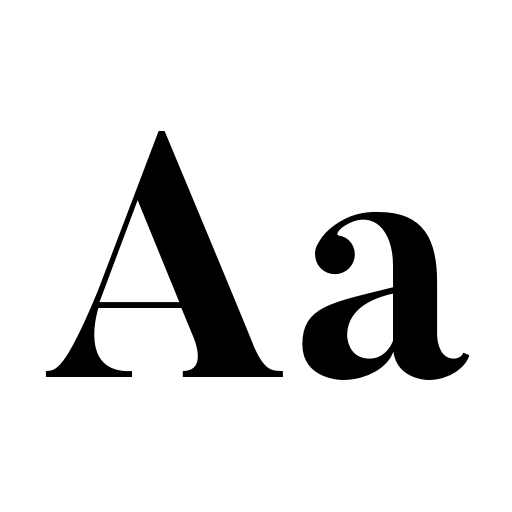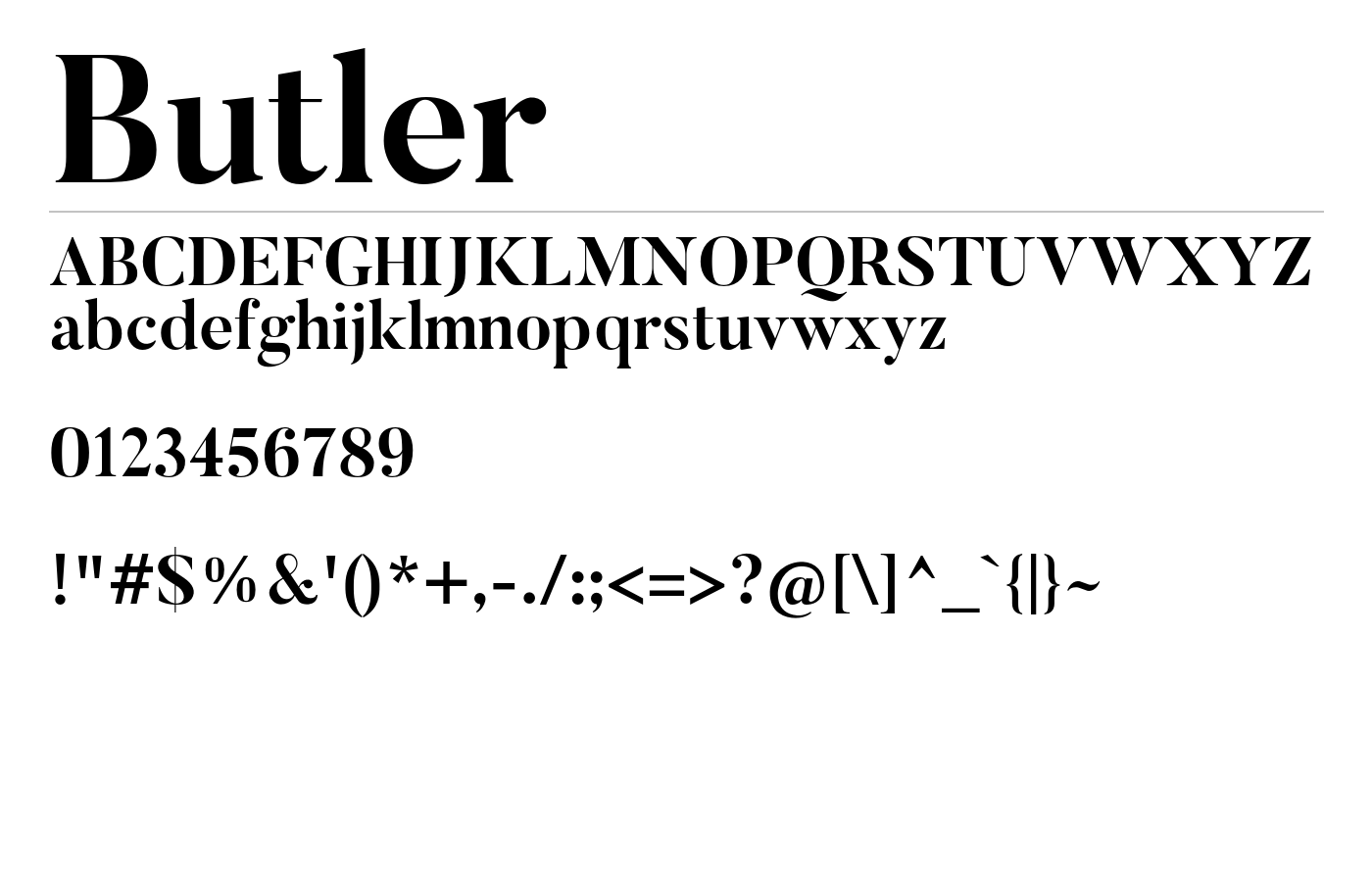
Butler is a sophisticated serif typeface that combines classic elegance with a modern touch through its high contrast between thick and thin strokes and refined bracketed serifs. Its bold weight and slightly condensed letterforms give it a strong presence, making it ideal for branding, editorial headlines, and luxury packaging where a stylish, authoritative voice is desired. This font's blend of traditional serif elements with contemporary design details creates a versatile and polished look perfect for fashion, editorial, and professional use.
Butler Font
About Butler Font
| Designer | Fabian De Smet |